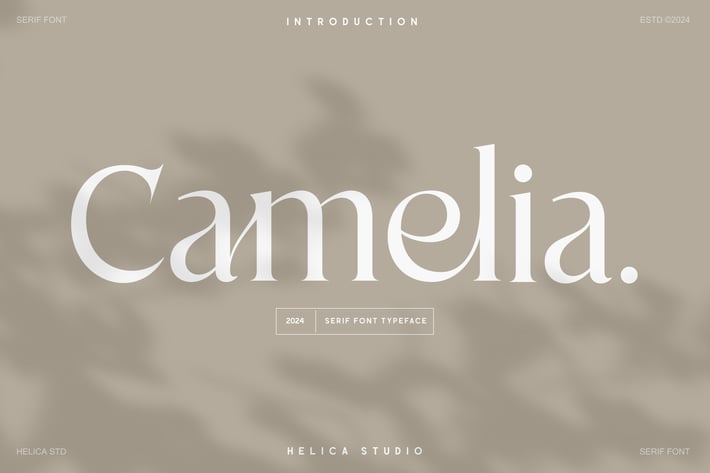
Camelia Modern Serif Font
Camelia Modern Serif Font is Trendy, elegant, and luxurious serif font. Perfect for modern branding with its stylish, creative, and classic design. Explore unique logo and website header possibilities with its versatile alternates and ligatures. Enjoy!
Main Features
Ligatures
Numeral & Punctuations